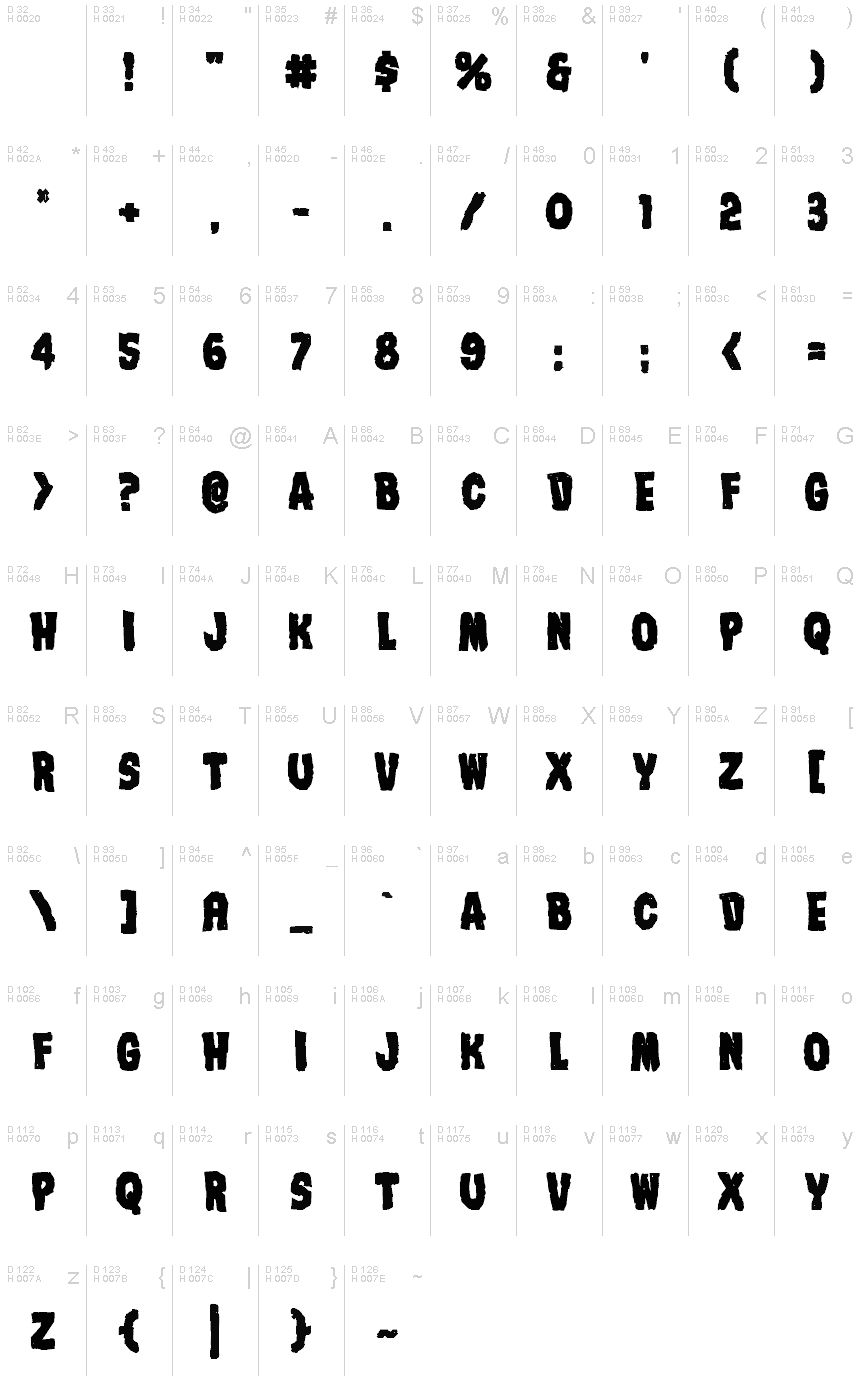
"Nightmare Alley Bold" is a striking display font that oozes an unsettling, ominous charm. Designed by Daniel Zadorozny, this condensed, bold typeface exudes a haunting, angular aesthetic that evokes a sense of foreboding and unease. The sharp, jagged letterforms and the gritty, textured finish lend the font an undeniably sinister presence, making it a perfect choice for horror-themed branding, book covers, and editorial design.
Its unique style and bold personality make "Nightmare Alley Bold" a versatile tool for designers seeking to create an atmosphere of suspense, mystery, or the macabre.